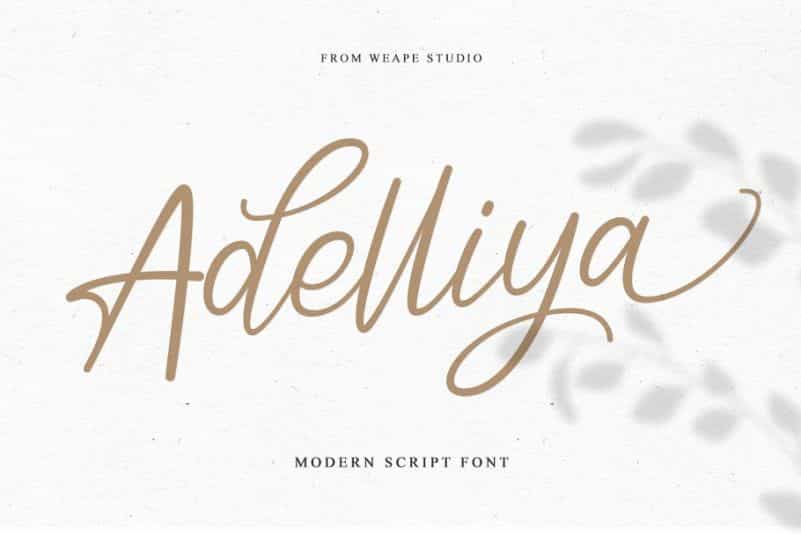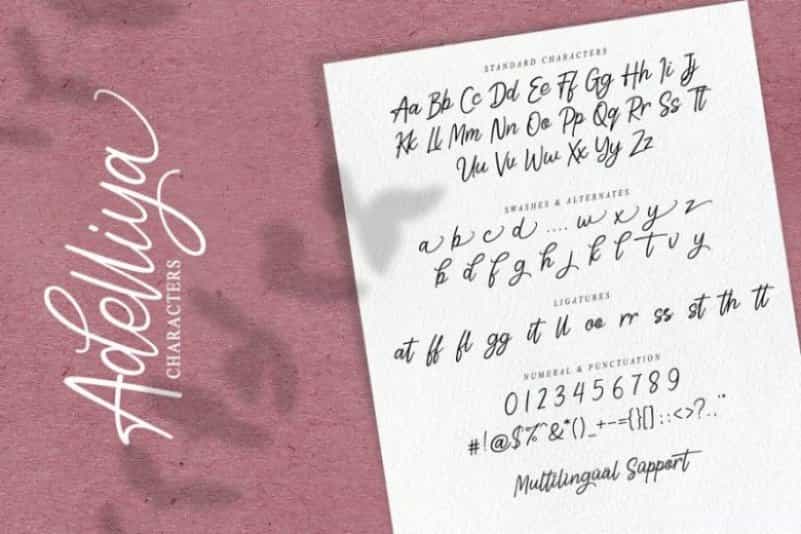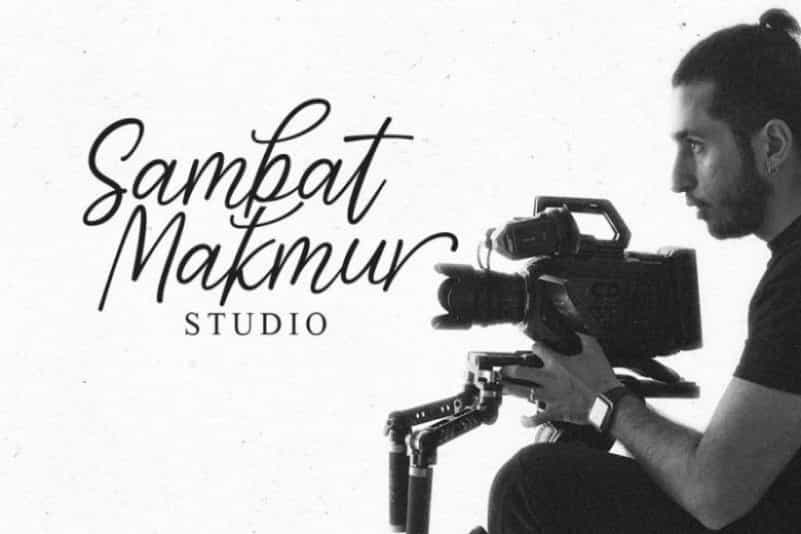
Introducing Adelliya Script Font. A font with a dash of modern calligraphy is useful to make every sentence written lovely. Adelliya is constructed with the opentype features and additional much ligatures which makes it look like a hand-written work. Through the multiple ligatures and swashes, it becomes more diverse.